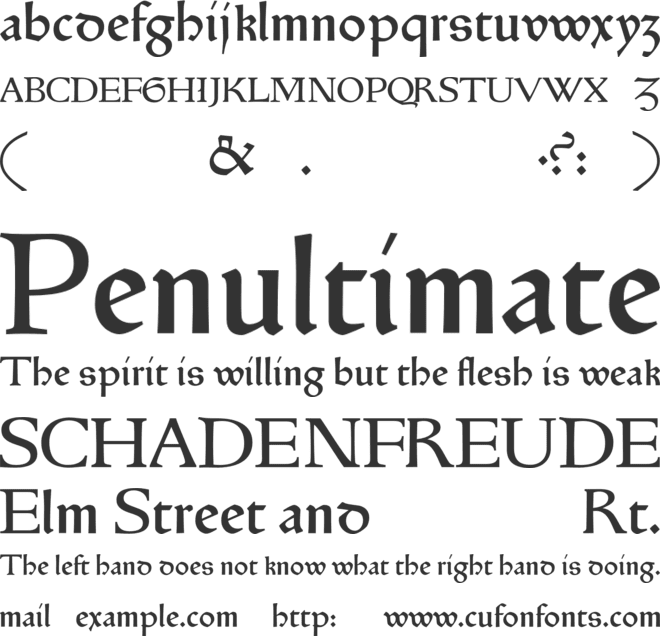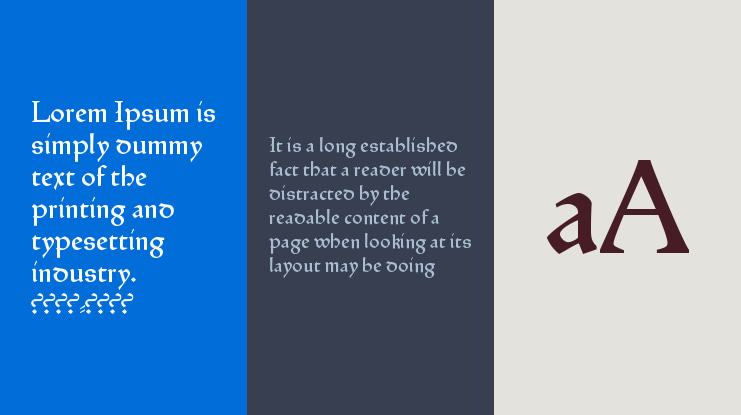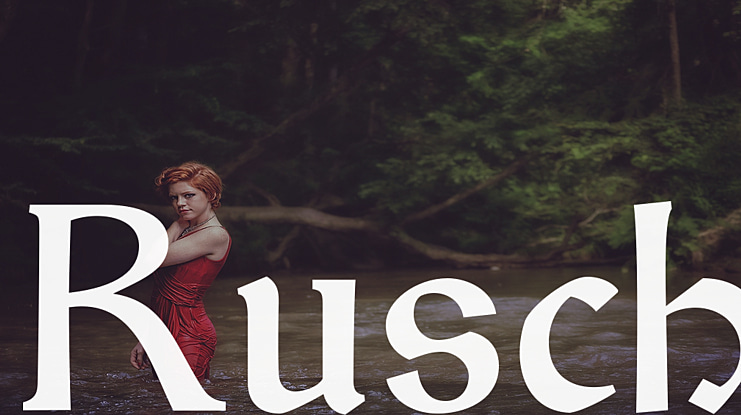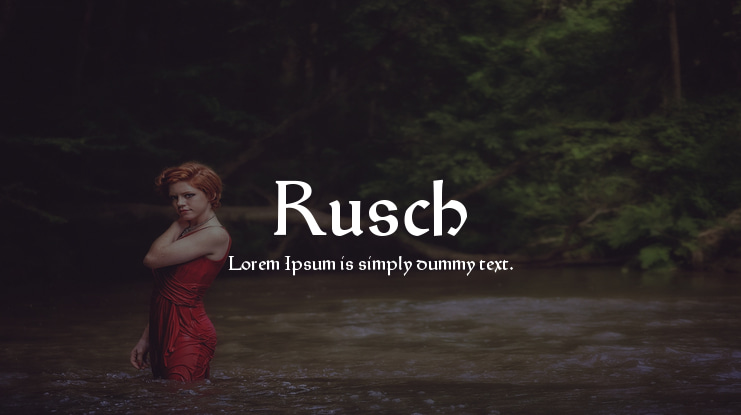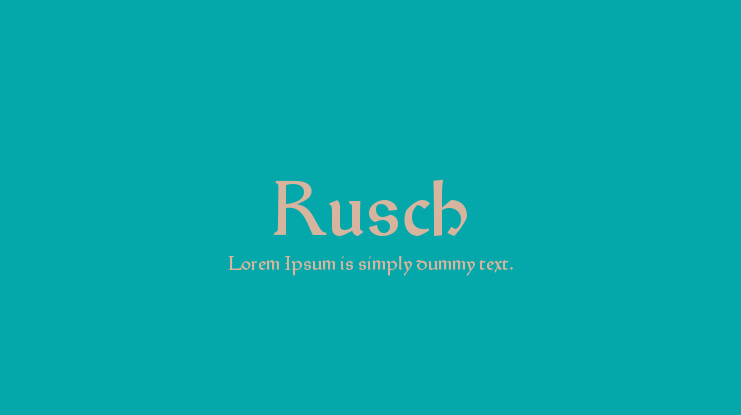
Rusch Font Family
Alexis Faudot, Rafael Ribas
Rusch âR-Bizarreâ 103R, Proto-Roman first used in Strasbourg by Adolf Rusch for Raban Maurâs De universo between 1467-74 (exact date unknown) and used until 1475.Type design workshop at ESAL Metz and Bibliothèque municipale de Metz, April 2018.Source: Secretum de contemptu mundi, Franscesco Pertrarca, 1473.Workshop participants: Suzy Michel, Anthony Visconti, Anis Remaki, Laureen Revocato, Sebald Pauer, Helena Berg, Jeanne Richarme, Cynthia Macri, Katharina Vilieva, Madelaine Pinot, Soline Guigonis, Lucie Medda, Alexis Faudot.Font designed and produced by Alexis Faudot and Rafael Ribas, directed by Jérôme Knebusch, Atelier National de Recherche Typographqiue (ANRT), Nancy.Copyright (c) 2019 ANRT. All rights reserved.